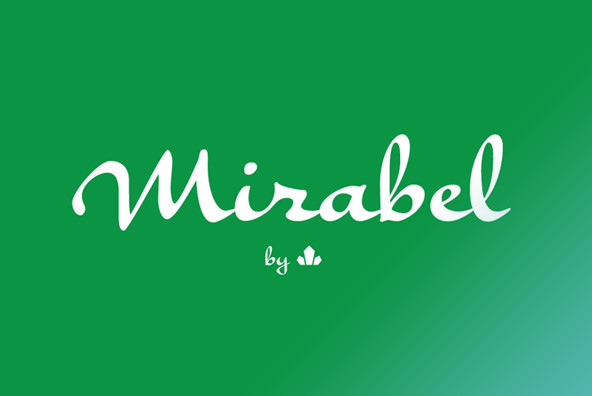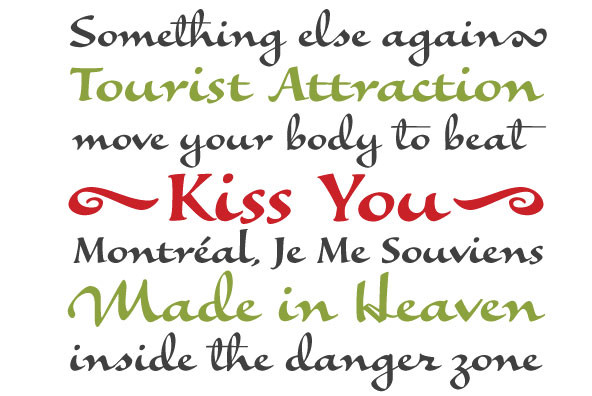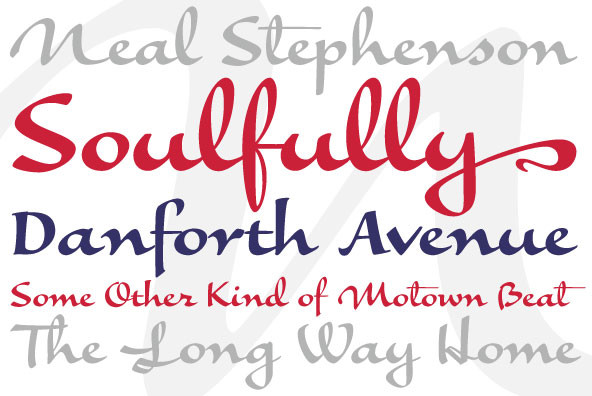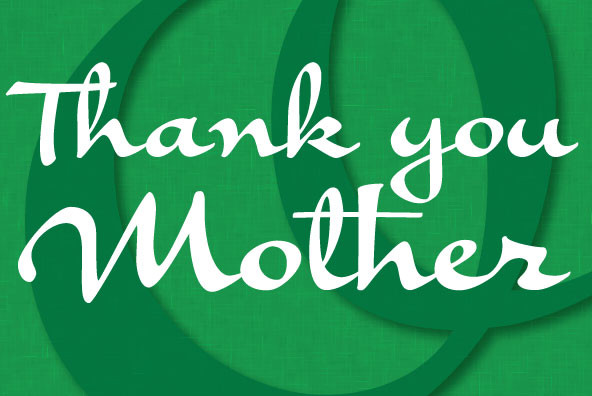
Mirabel
Foundry: Canada Type
Mirabel is based on the handwriting of Beverly Bouwsma (Philip's mother), which she developed in the 1930s in, as she puts it, an act of teenage rebellion. In the 1960s, Philip gave her a broad-edged Osmiroid fountain pen which she took to immediately and has used ever since, along with the computer fonts he made from her script. Since Beverly Bouwsma mixed loops and straight ascenders, two interchangeable fonts have emerged, a formal package that sacrifices some flamboyance for classical balance and legibility, but retains the quality of the writing and celebrates the personality of its creator. The Mirabel fonts are available in all popular font formats, and the character sets cover a wide range of codepages, including Central and Eastern European languages, Esperanto, Turkish, Baltic, Celtic/Welsh.